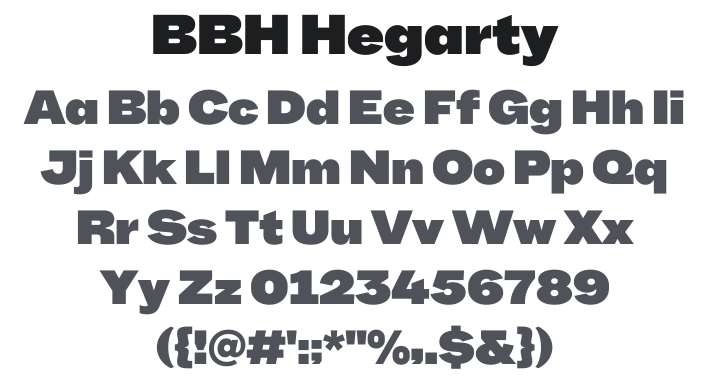
BBH Hegarty Font
by Studio DRAMA
About BBH Hegarty
The BBH family is a clean and versatile sans-serif available in three widths: BBH Bogle (condensed), BBH Hegarty (normal), and BBH Bartle (expanded).